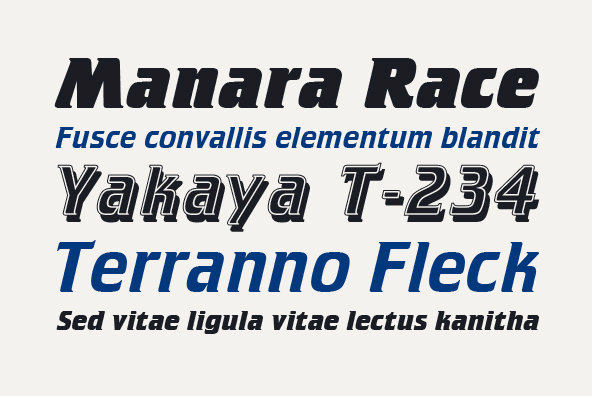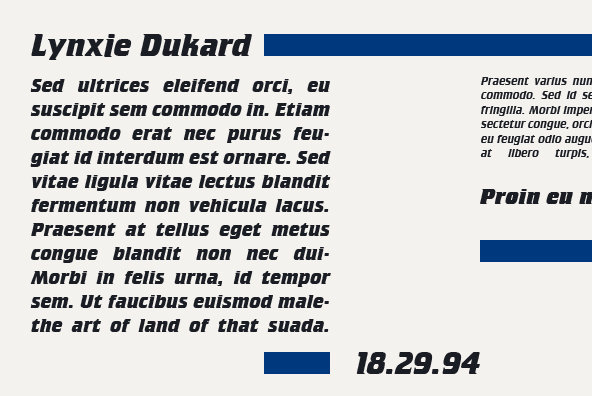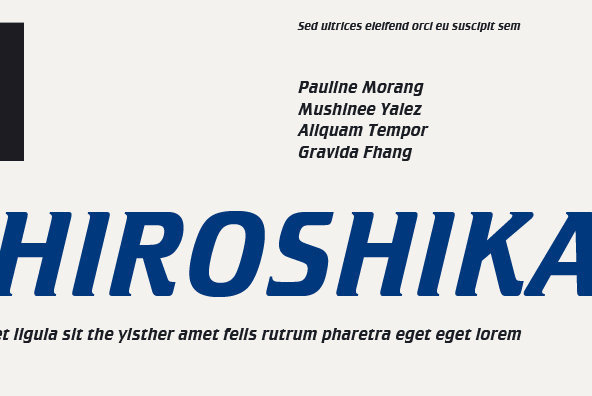
Crillee Font Family
This slick-looking geometric typeface evokes a feeling of power and speed when closely spaced in word settings. The Crillee range is an excellent choice when a contemporary appearance is required. Produced in the Type Studio by type designer, Dick Jones.